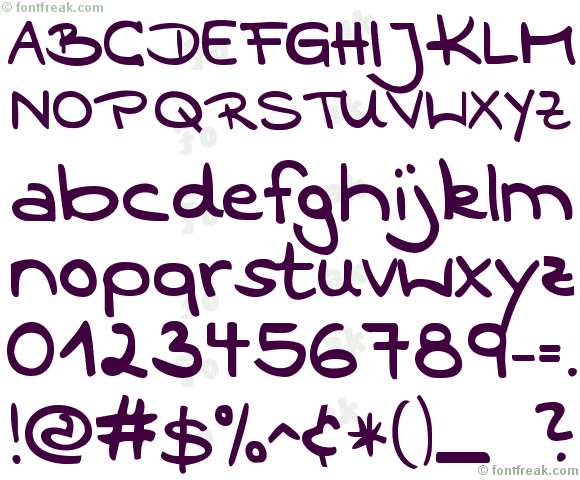
The We Are Broken font, created by Kimberly Geswein, is a captivating handwritten typeface that stands out for its unique charm and expressive style. This font features a playful, casual aesthetic characterized by its irregular letterforms and varying stroke weights. The overall look exhibits a sense of spontaneity, making it perfect for projects that require a personal touch. The letters are designed with moderate contrast, providing a lively and approachable feel, while the spacing is generous, enhancing readability and flow.
We Are Broken is an excellent choice for a variety of creative applications. Its whimsical nature makes it particularly suitable for wedding invitations, where a touch of elegance and informality is desired. Additionally, it can elevate the visual appeal of movie posters, lending a sense of dynamic energy that captures attention. Restaurant menus can also benefit from this font, as it adds a friendly and inviting atmosphere to the dining experience. Content creators looking to make their social media graphics pop will find this font to be an effective tool for engaging their audience. Graphic designers and small business owners will appreciate its versatility and ability to convey personality in their branding efforts.
The target audience for the We Are Broken font includes graphic designers, small business owners, and content creators who seek to infuse their work with a sense of character and warmth. This font is a wonderful choice for those who want to communicate creativity and authenticity in their projects. With its distinctive look and approachable style, the We Are Broken font free download is a valuable addition to any designer's toolkit, making it an ideal choice for anyone looking to make a memorable impression.